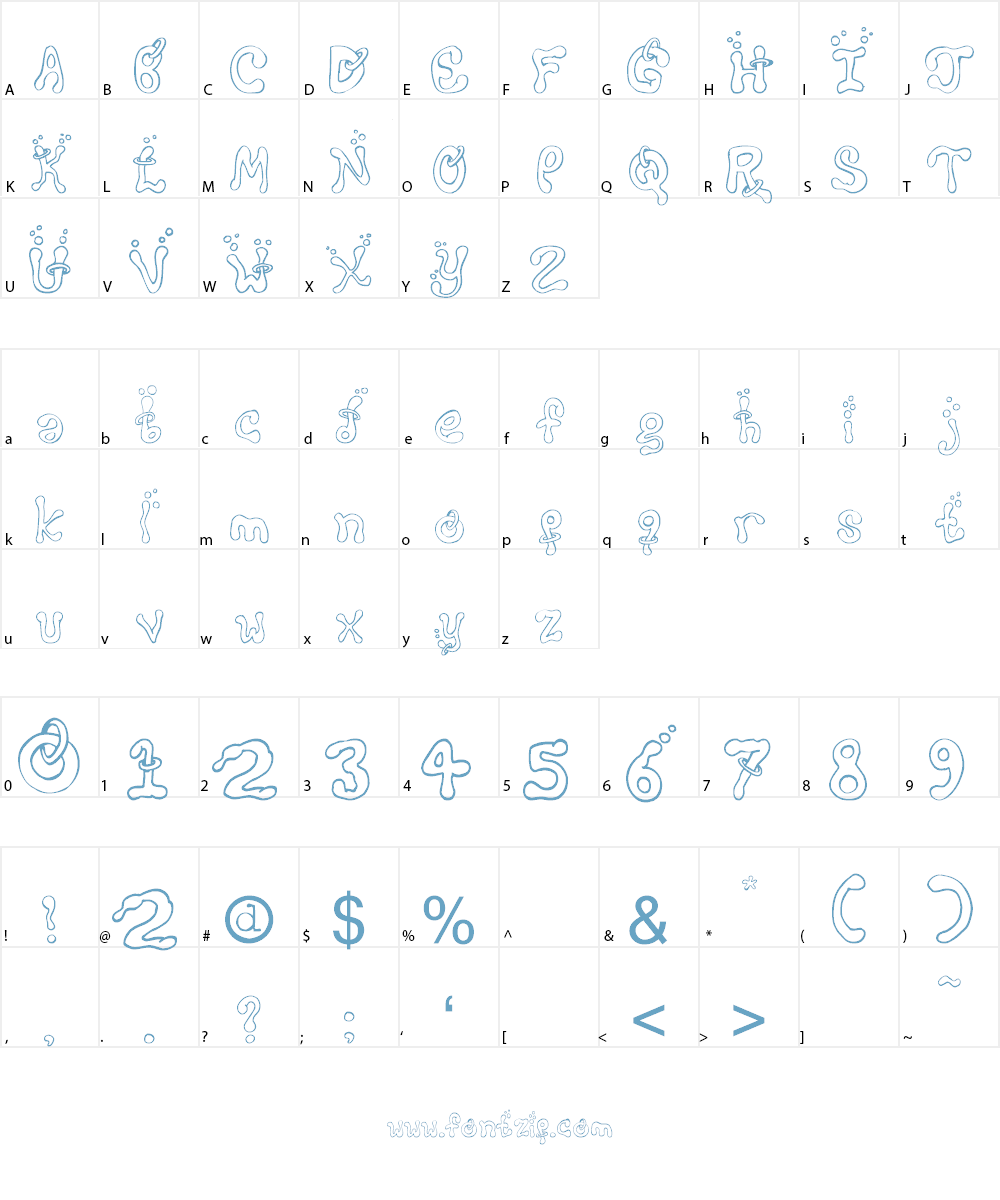
my recent trip to mexico prompted this new disturbed font. i made it almost a year ago, but i just now decided to give it to you guys. it was inpired by.... no, not loose bowel movements.... it was inspired by my lava lamp. i don't like my lava lamp anymore because it's red and red makes me really nervous.